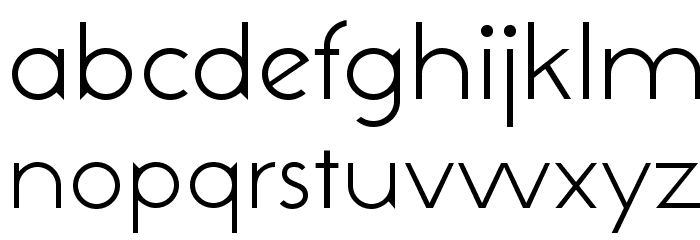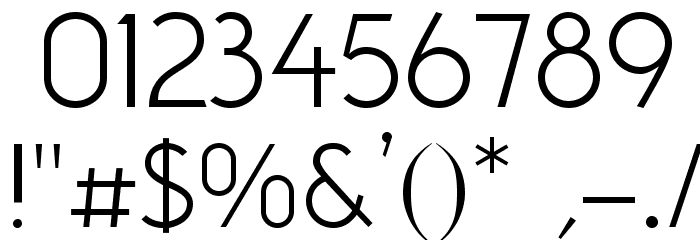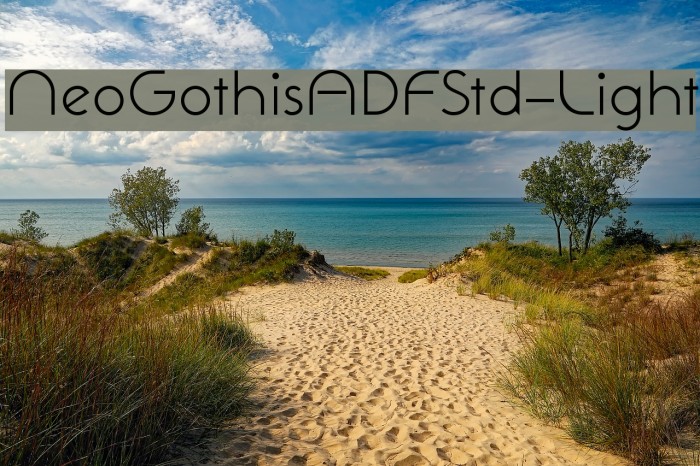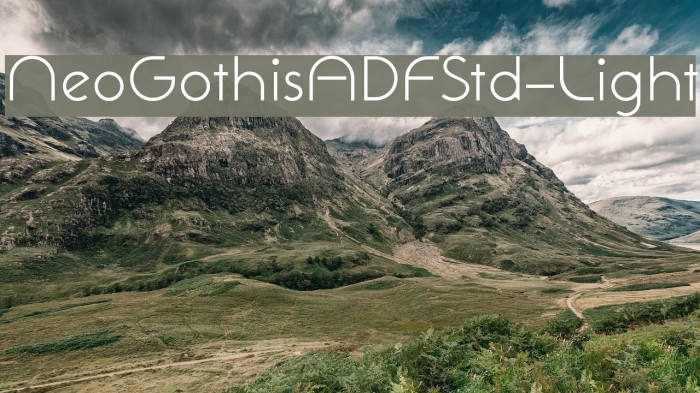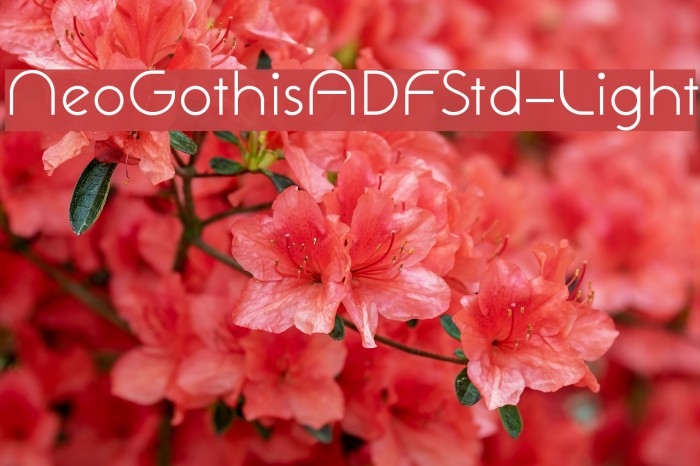
NeoGothisADFStd-Light Font
This font features a sleek and modern design with clean lines and a minimalist aesthetic. The characters are evenly spaced, providing a balanced and harmonious look. The uppercase letters are tall and slightly condensed, while the lowercase letters maintain a consistent height, contributing to a uniform appearance. The numerals are clear and legible, making them suitable for various applications. Special characters are designed with the same attention to detail, ensuring they blend seamlessly with the rest of the font. Overall, this font exudes a contemporary and professional vibe, making it ideal for modern design projects.
A sleek, modern font with clean lines and a minimalist aesthetic.
- Proposed Projects: Ideal for branding, advertising, digital media, and editorial design.
- Use Case: Headlines, Body text, Logos